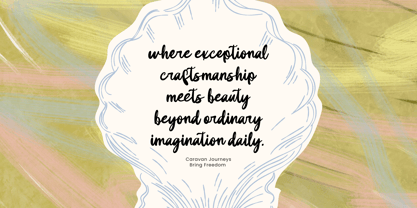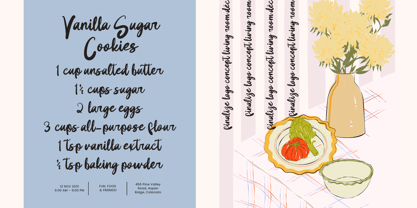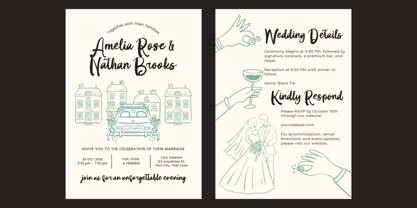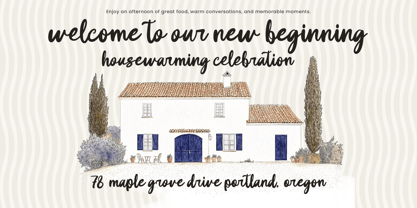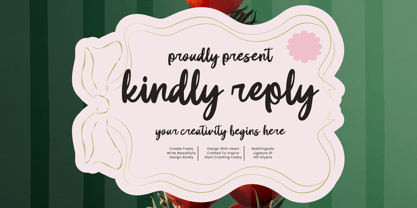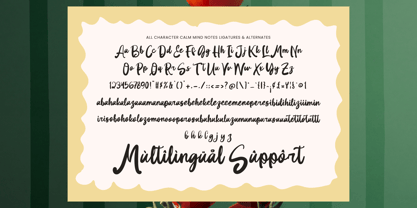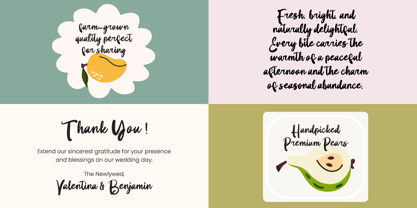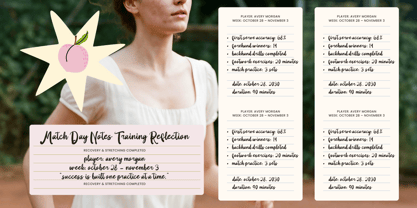
KindlyReply
Kindly Reply is a whimsical handwritten font designed to capture the warmth, charm, and spontaneity of natural handwriting. Featuring playful strokes, smooth curves, and an authentic handwritten personality, this typeface brings a friendly and creative touch to every design.
Inspired by handwritten notes, wedding stationery, recipe cards, journals, invitations, and lifestyle branding, Kindly Reply combines organic letterforms with a relaxed rhythm to create typography that feels personal, approachable, and beautifully expressive.